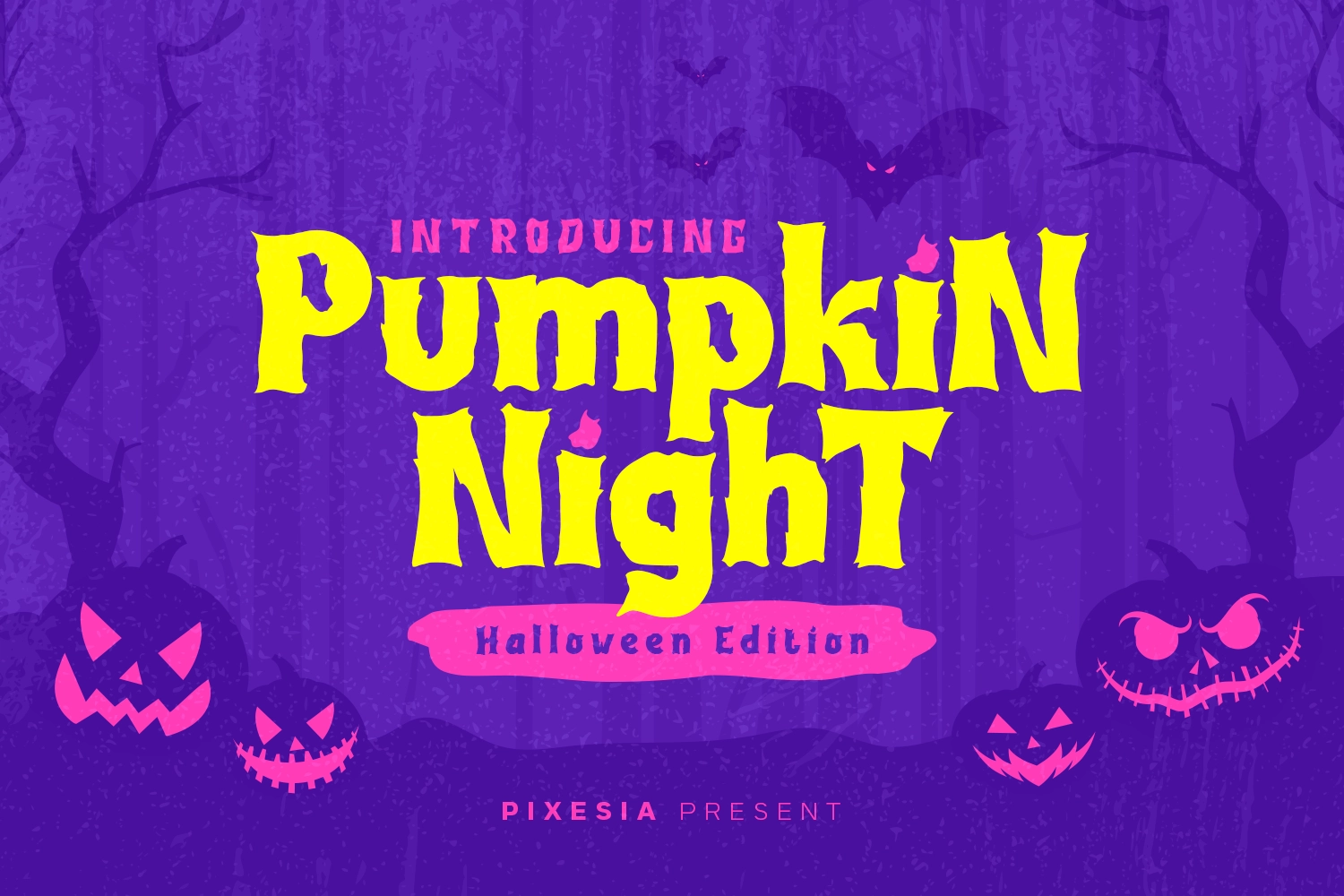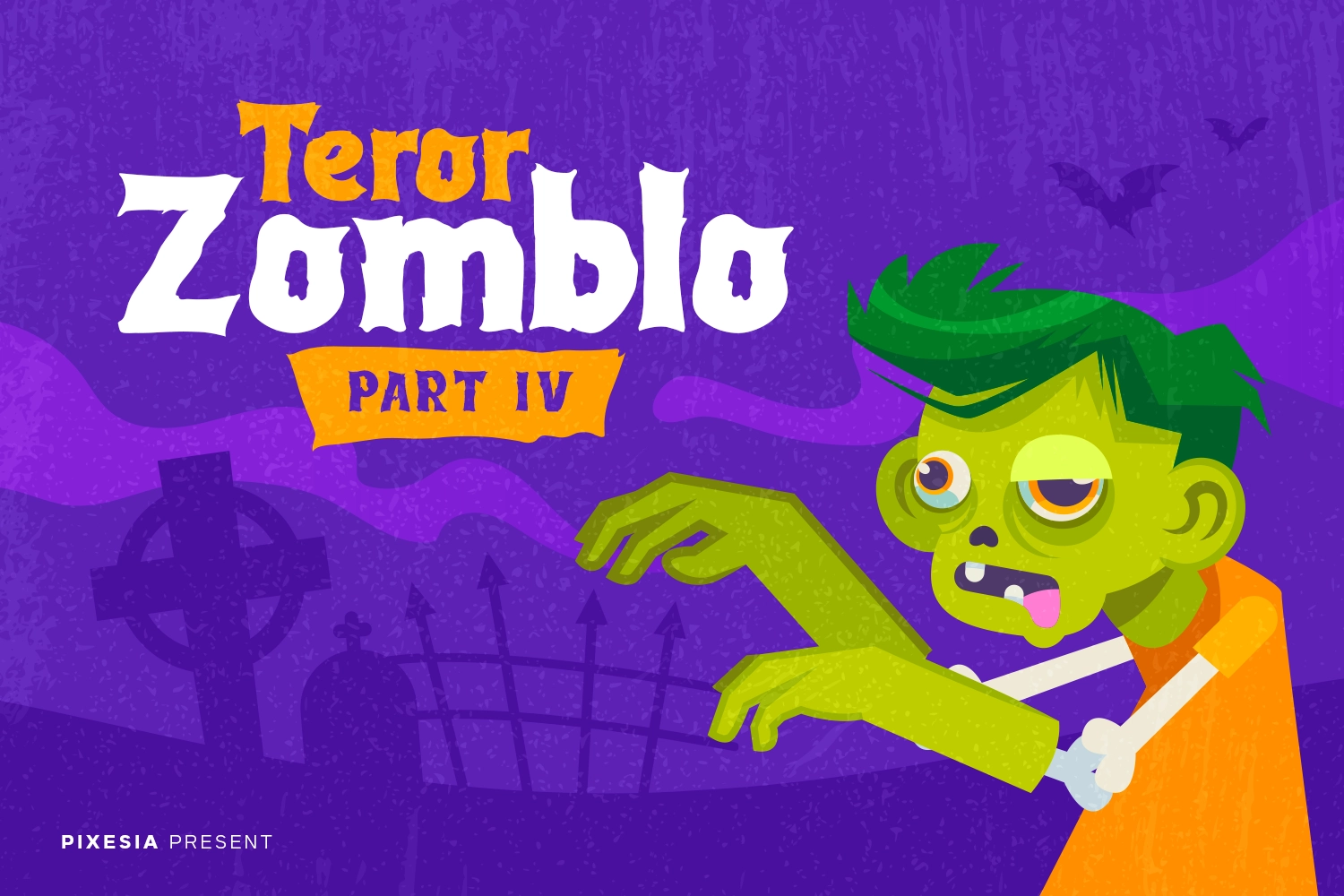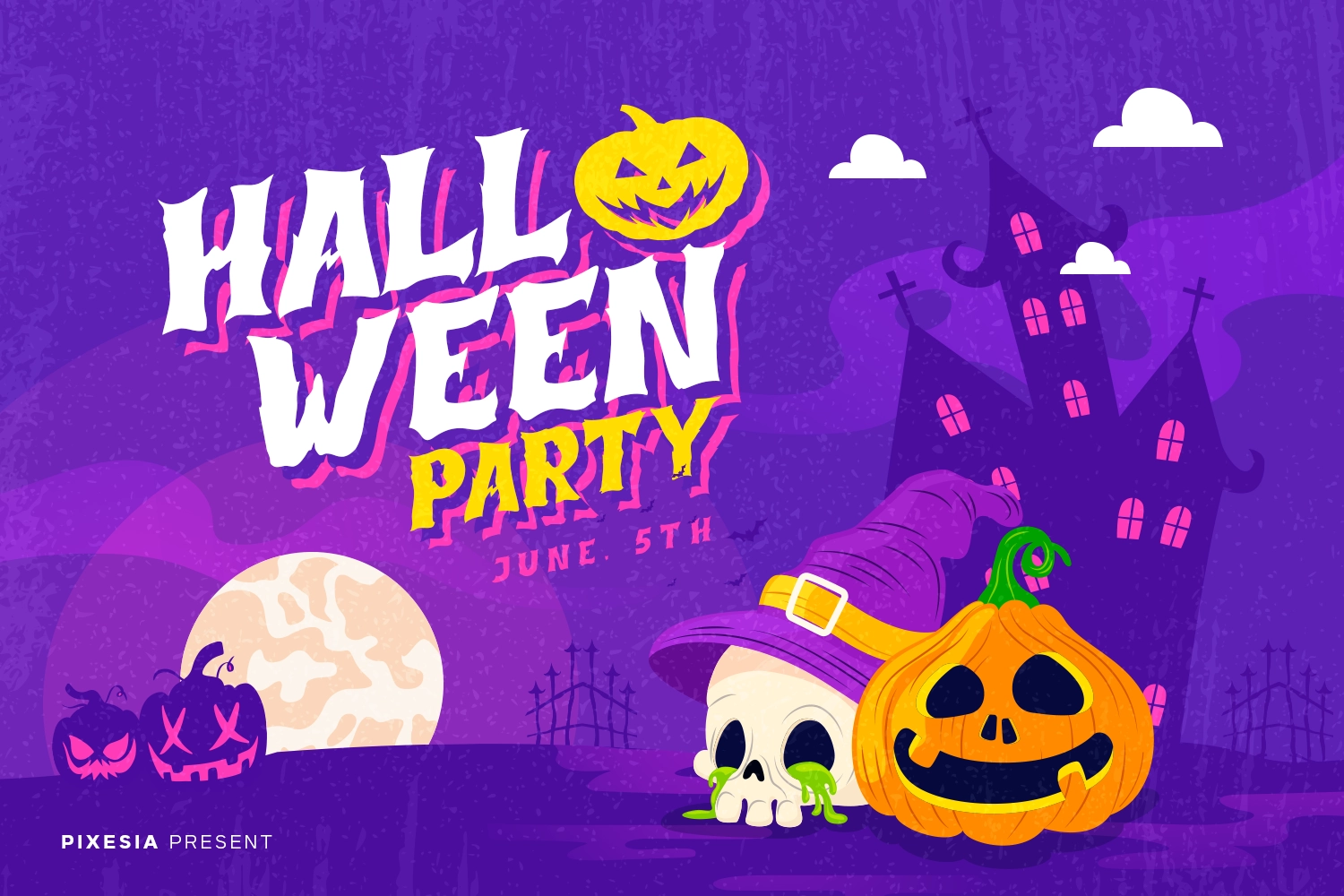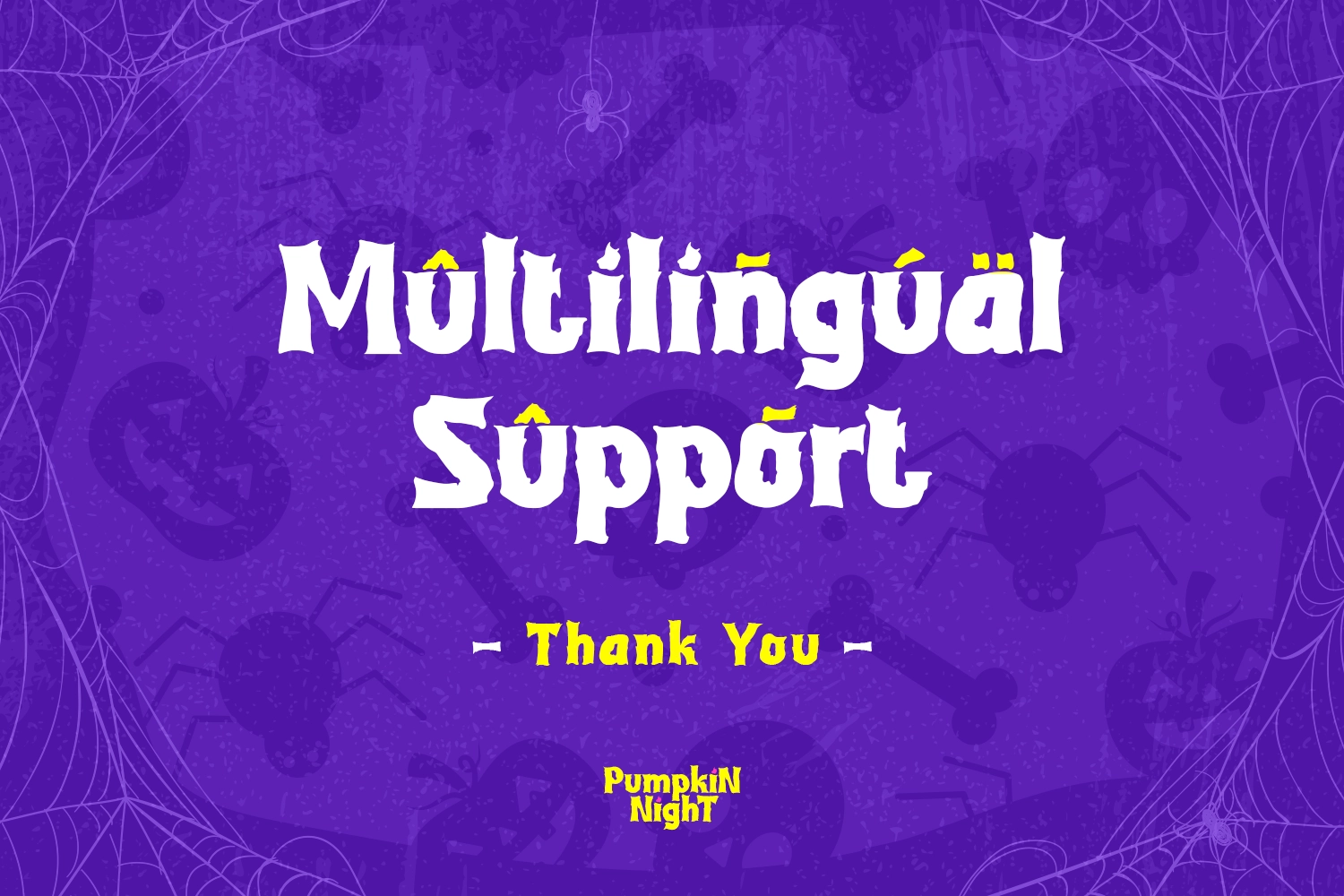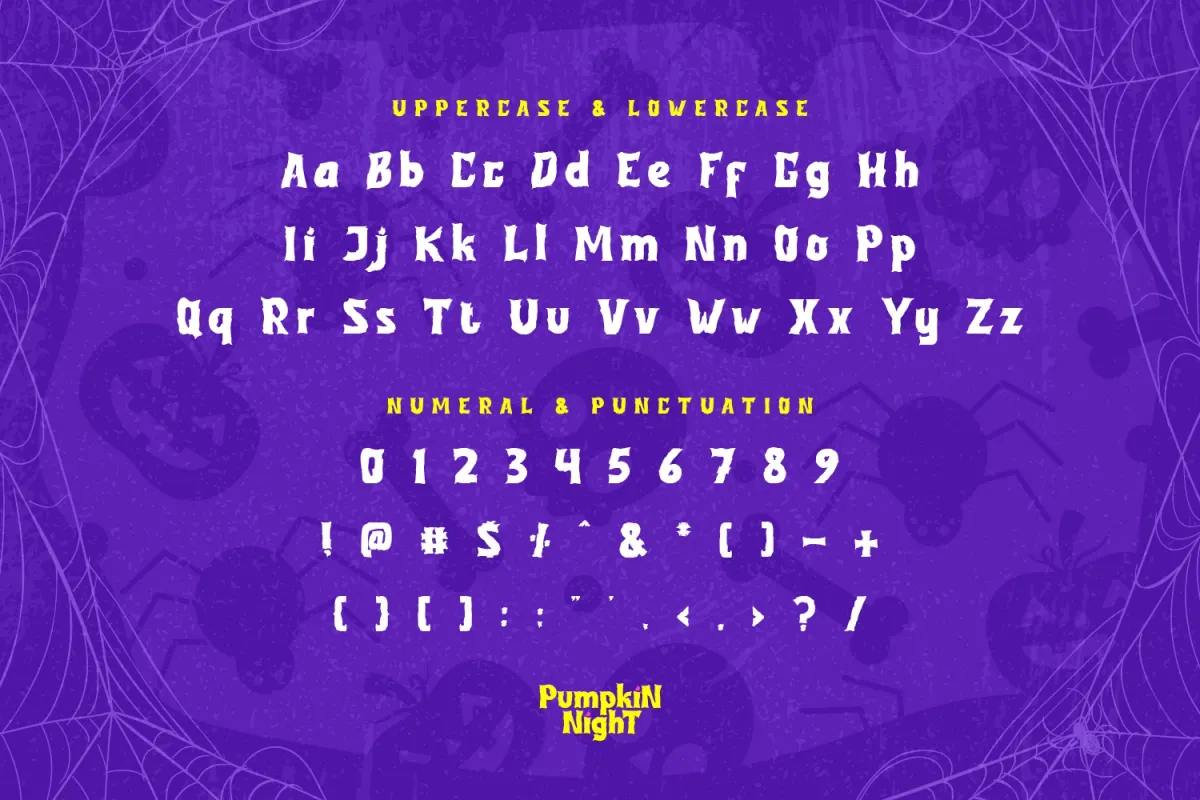
Pumpkin Night - Spooky Display Font
Pumpkin Night
Bring a ghostly charm to your creative projects with Pumpkin Night – Spooky Display Font , a bold and atmospheric typeface that captures the essence of mystery, fantasy, and Halloween spirit. With its sharp curves, eerie strokes, and mystical vibe, it instantly adds dramatic flair to any layout.
Perfect for Halloween posters, movie or book titles, branding, product packaging, and social media graphics, Pumpkin Night transforms ordinary text into something bewitching and unforgettable. Its expressive letterforms deliver just the right mix of horror and playfulness — ideal for seasonal campaigns and themed visuals.